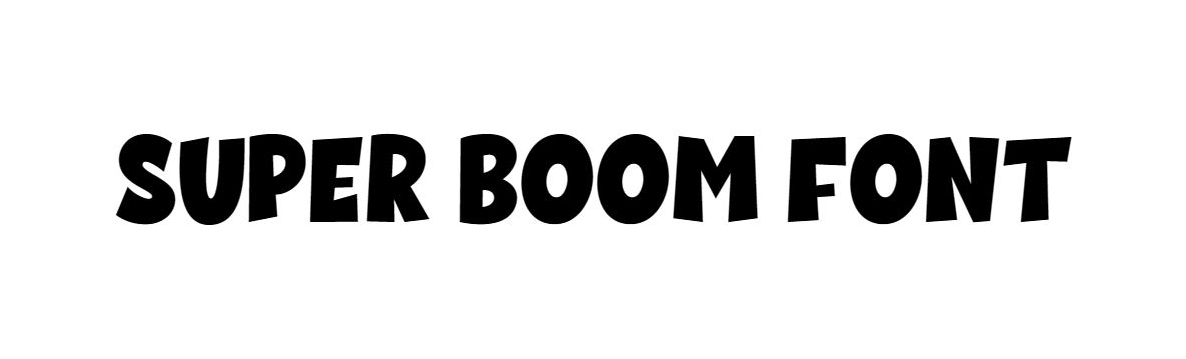
Super Boom
Super Boom is a cartoon font (2020). Its bouncy, rounded letters feel playful, like lettering from a cartoon or a comic book. It's a free download, and you can try it with your own text in the preview above first.
What You Can Type With Super Boom
Super Boom covers the full alphabet in upper and lowercase, plus all ten numbers, so you can set names, dates and prices without switching fonts. Common punctuation such as &, !, ? and @ is included as well. It also has the accented letters you need for Spanish, French, German, Portuguese and Italian.
Where Super Boom Works Best
Designers usually reach for fonts like Super Boom when they're making kids' books, birthday invites and fun YouTube thumbnails. Cartoon fonts are great for short, fun lines. If you place it over a busy photo, add a thick outline or a drop shadow so it stays readable.
Does Super Boom support accented letters?
Yes. Super Boom includes the accented letters needed for Spanish, French, German, Portuguese and Italian, so it works for more than just English.